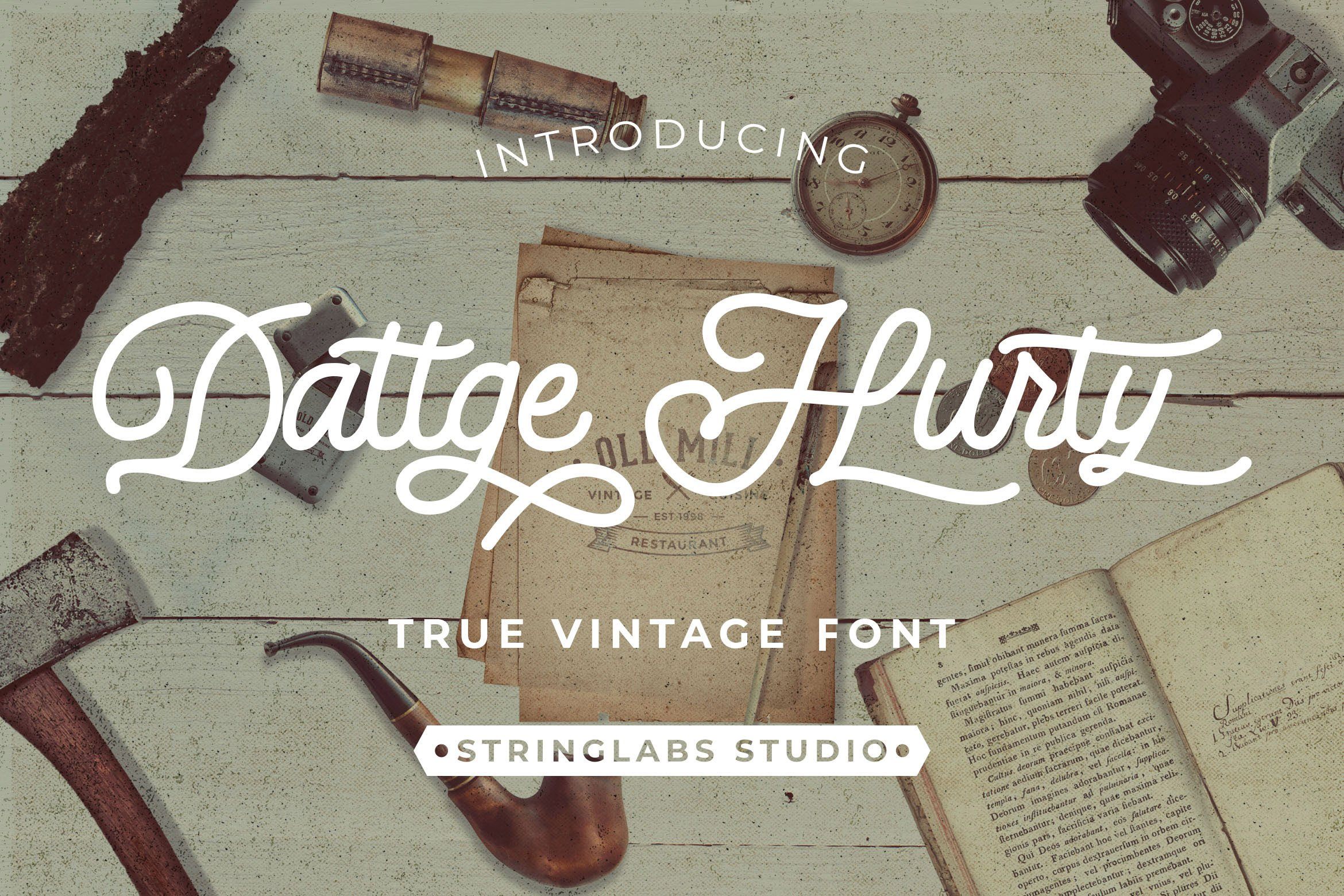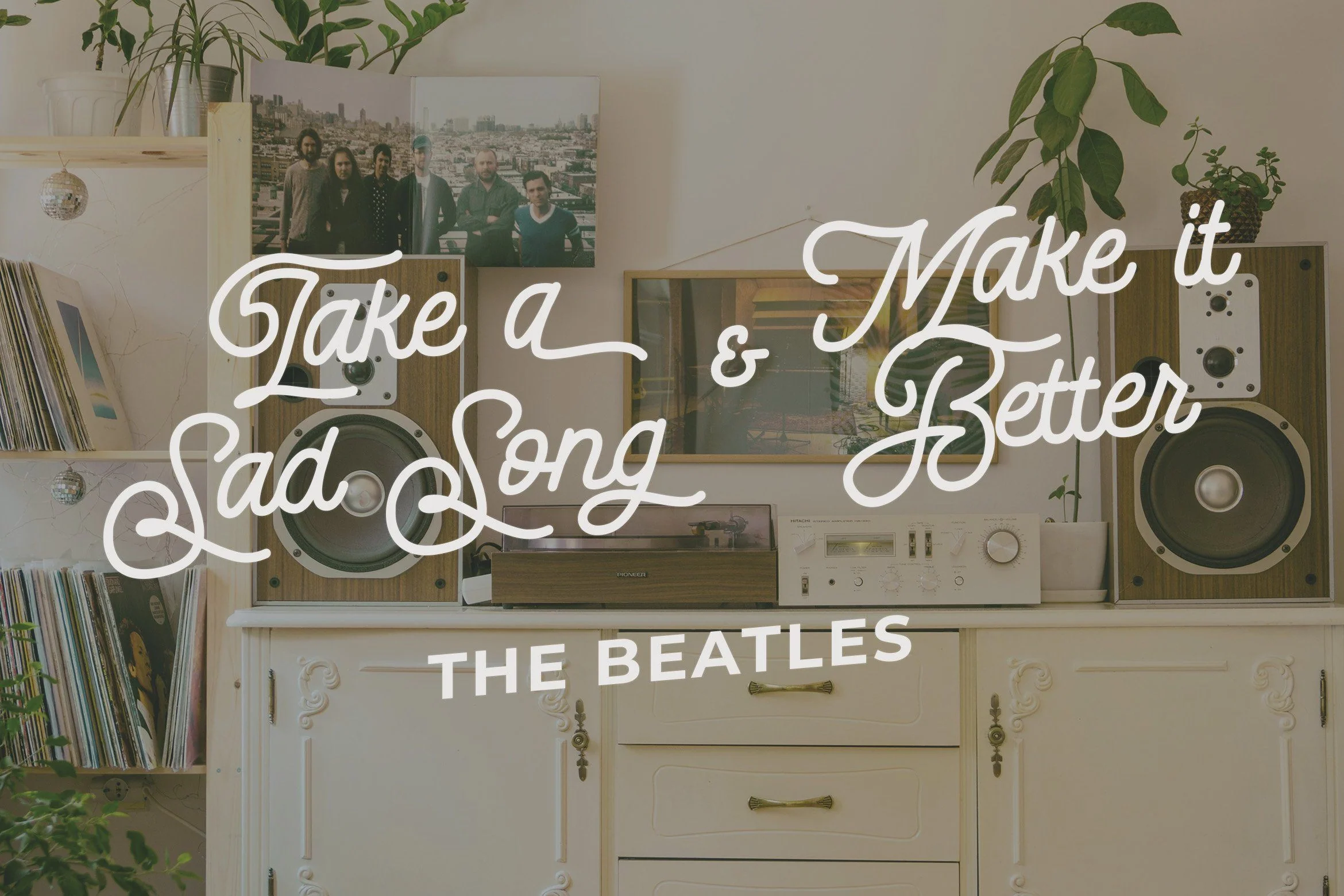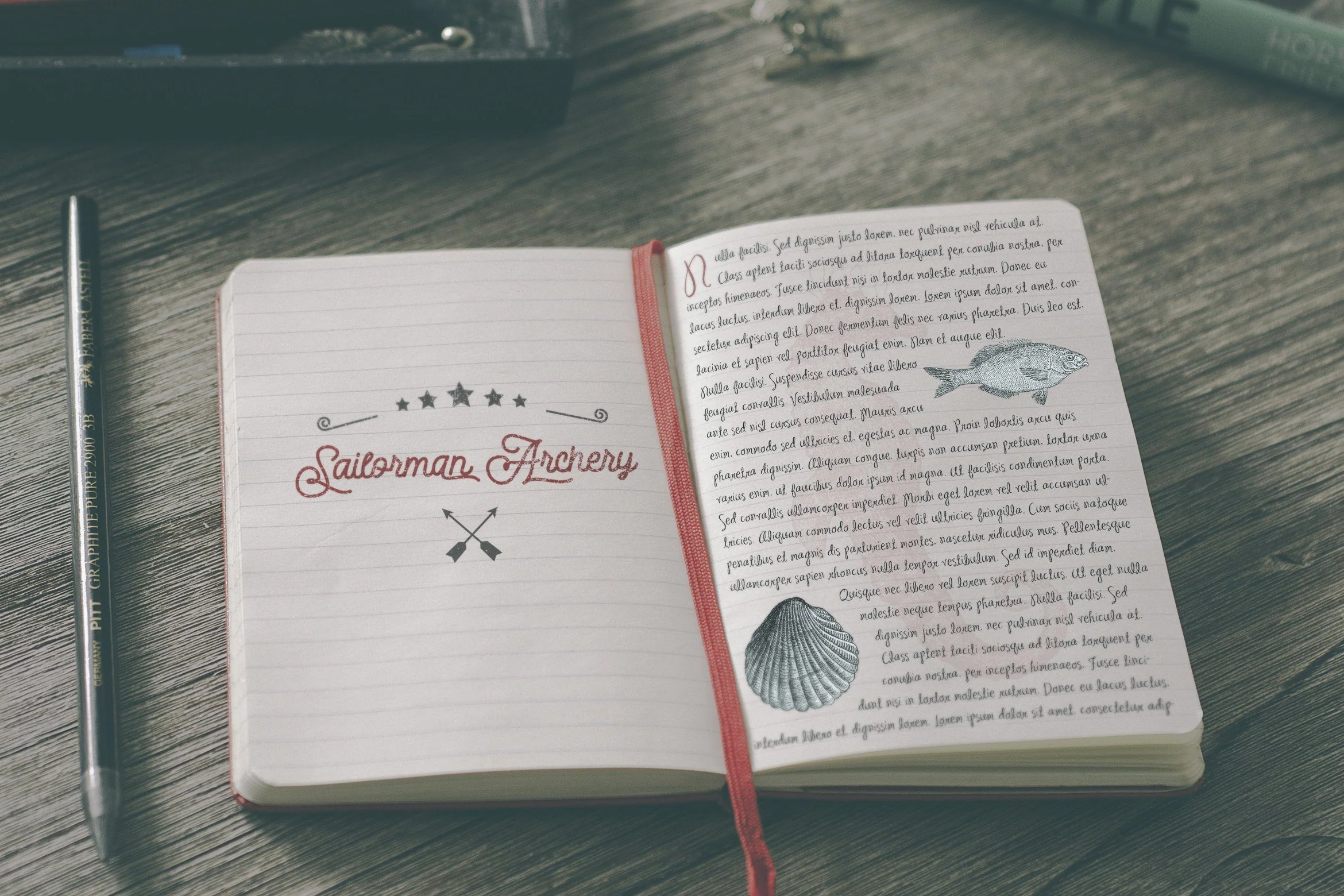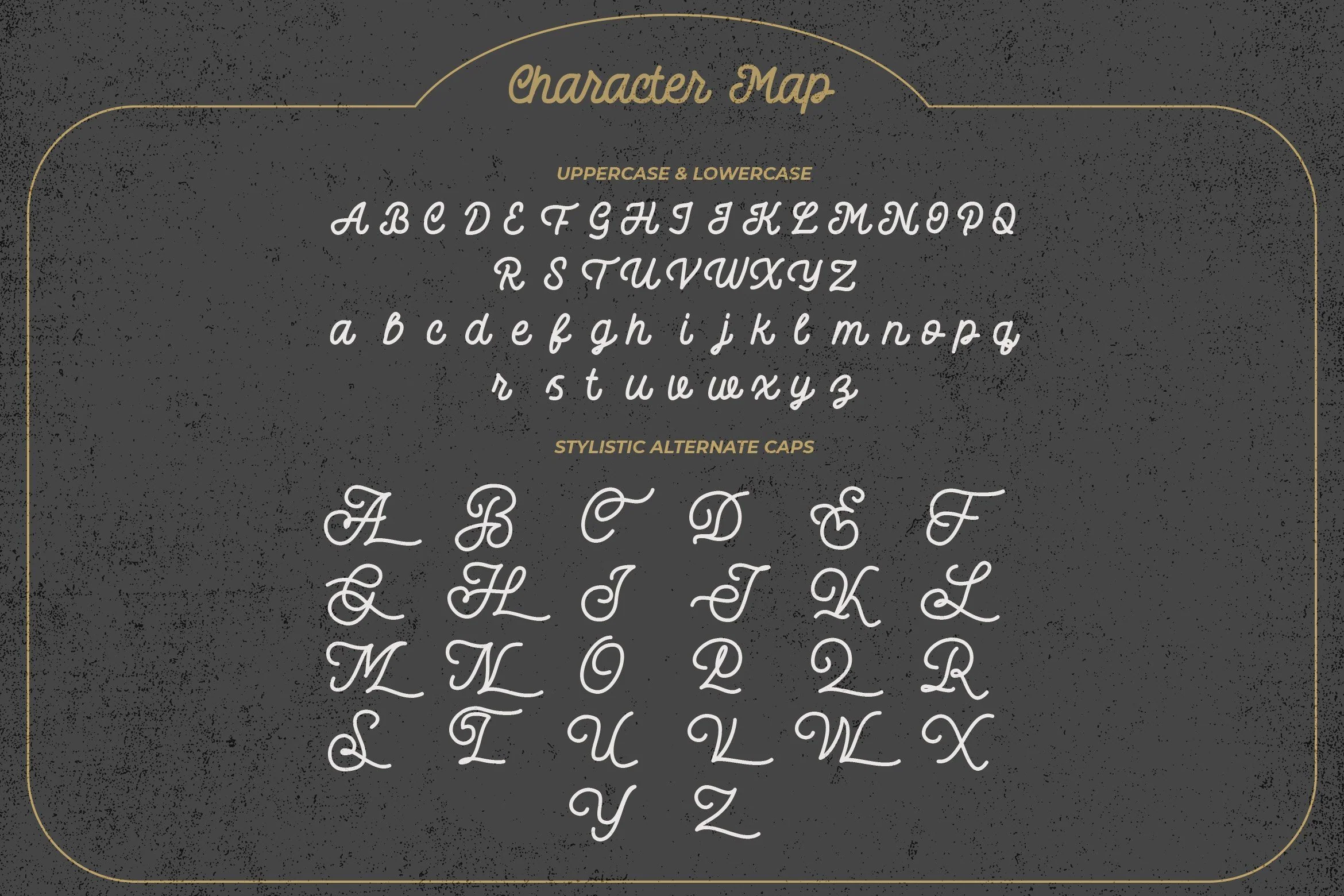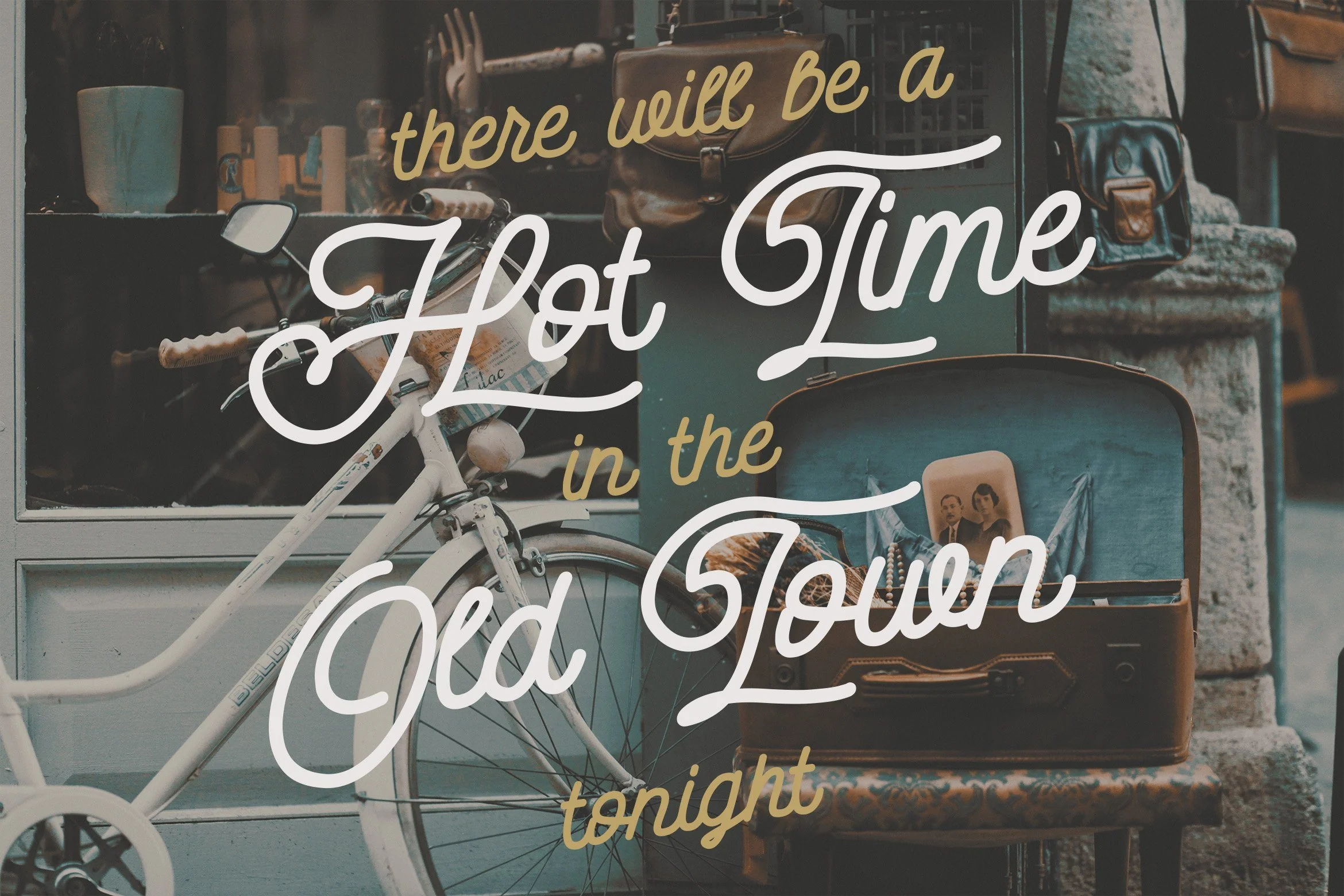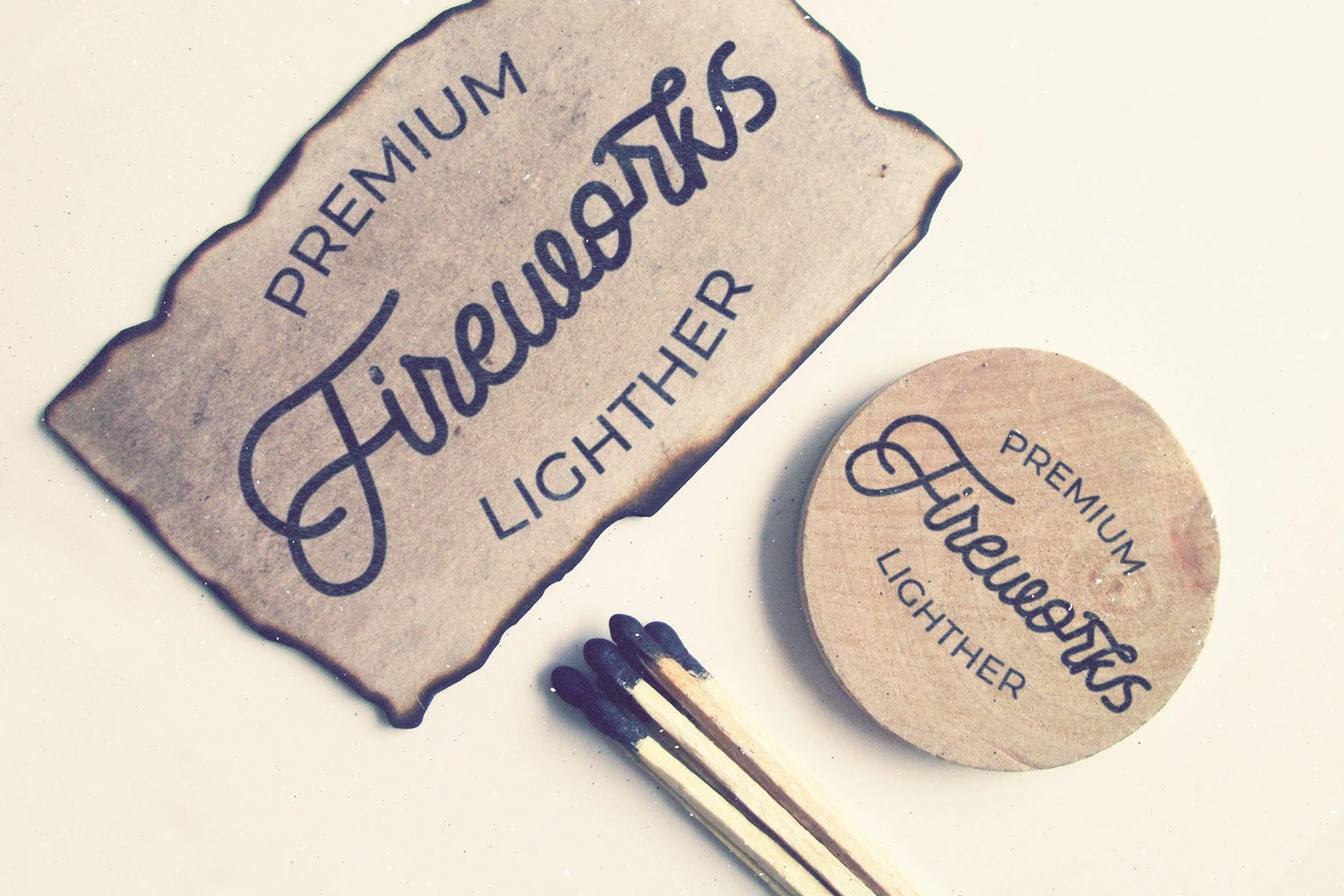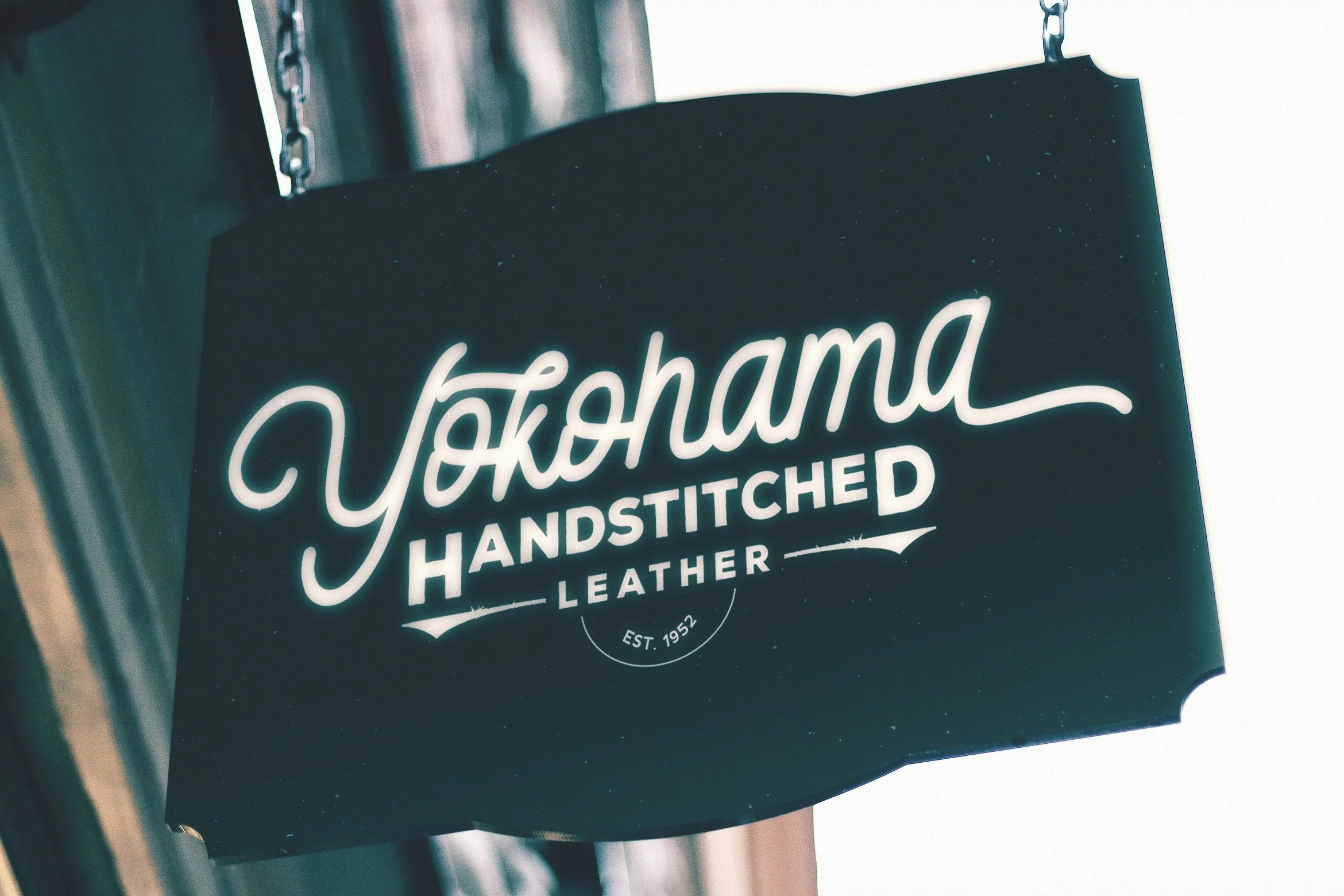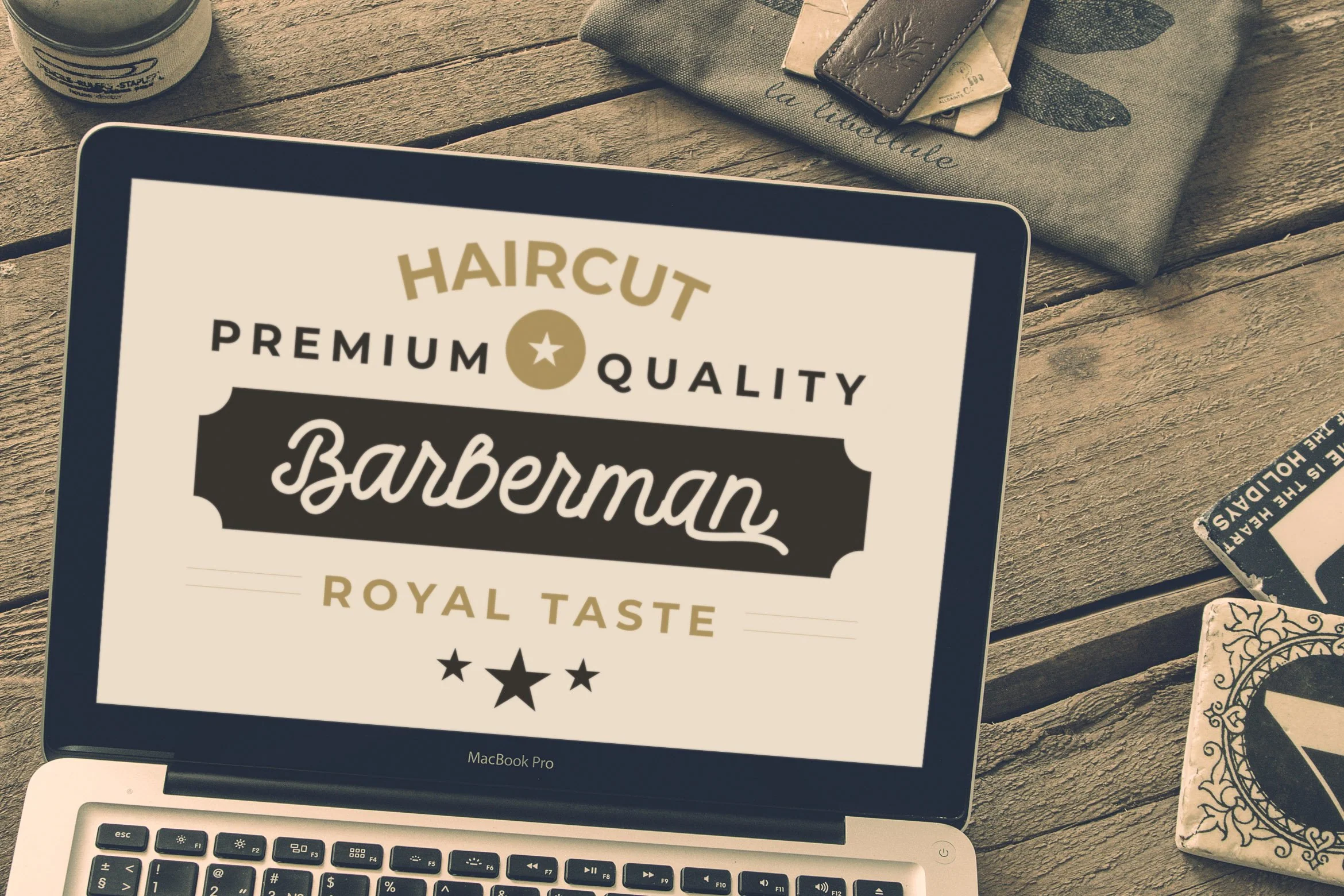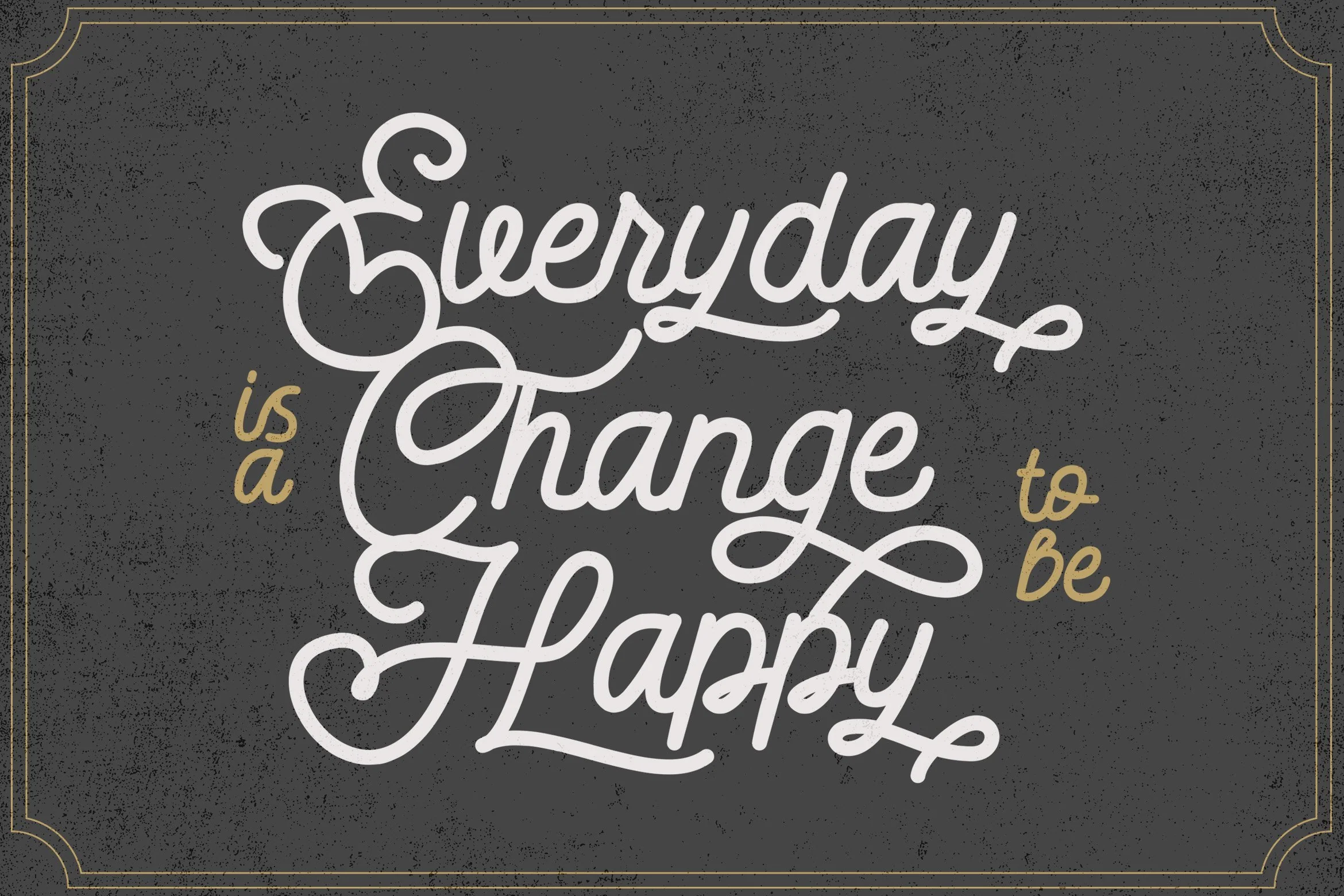
Dattge Hurty - Monoline Retro Script Font
Introducing Dattge Hurty - Monoline Retro Script Font
Dattge Hurty is a Monoline Script Font with Retro Vintage Style. This font is perfect for fashion brand, apparel, shoes company, wedding invitation, business card, logo brand, clothing, and also business brand name like barber shop or taylor.
This Font Template contains Classy, Elegant, Creative, Cool and has a Unique Concept.
- Swash
Introducing Dattge Hurty - Monoline Retro Script Font
Dattge Hurty is a Monoline Script Font with Retro Vintage Style. This font is perfect for fashion brand, apparel, shoes company, wedding invitation, business card, logo brand, clothing, and also business brand name like barber shop or taylor.
This Font Template contains Classy, Elegant, Creative, Cool and has a Unique Concept.
- Swash